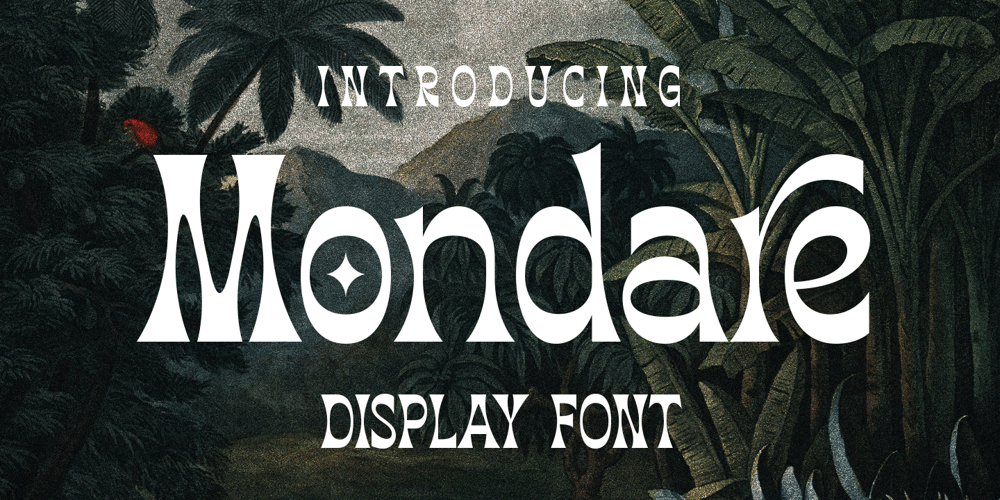
Mondare Font Family was designed by Novitasari Romli and published by Novitype. Mondare contains 1 styles and family package options. Introducing Mondare, an exceptionally unique reverse-contrast font that exudes timeless charm. Crafted with a touch of classic elegance, Mondare offers beauty in every letterform. This font is perfect for eye-catching display purposes.Mondare is the ideal choice to elevate your designs. You can rely on this font for crafting logos, branding, posters, book covers, quotes, cards, or invitations. It comes complete with special characters, allowing you to create a myriad of beautiful design variations.Here’s what you’ll get: Uppercase letters Lowercase letters Numbers Symbols and punctuation Multilingual support Stylistic alternates Stylistic sets